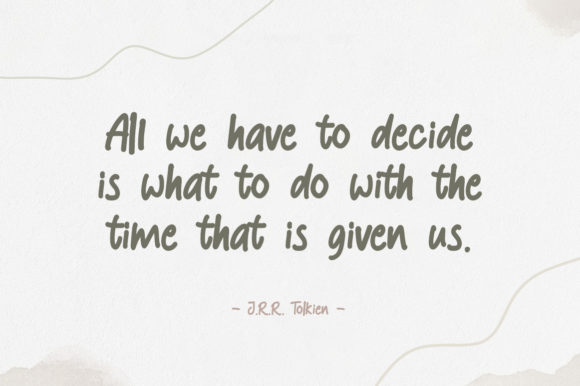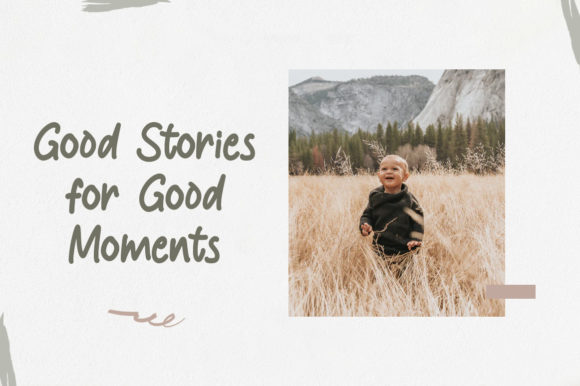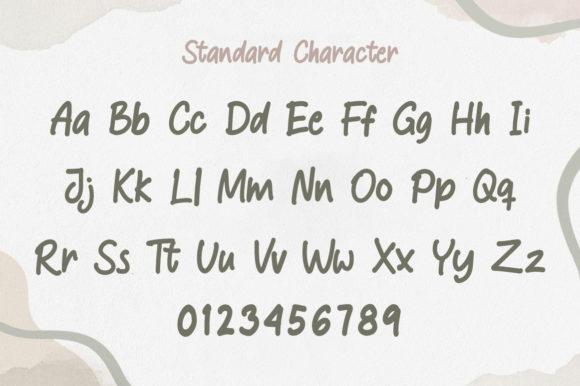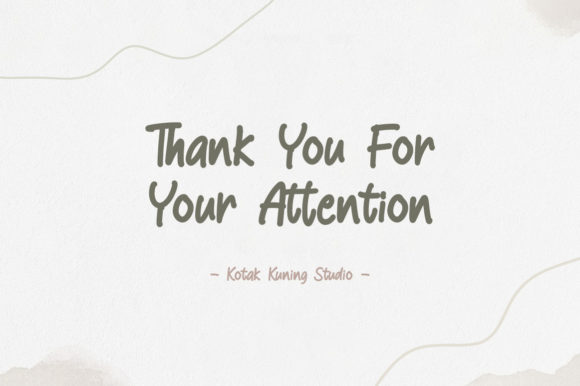
Introduction to Diary Alettima Font
Diary Alettima is a playful and unique font that will easily add a fun touch to any craft.
Diary Alettima is a playful and unique font that will easily add a fun touch to any craft!
Key Features of Diary Alettima Font